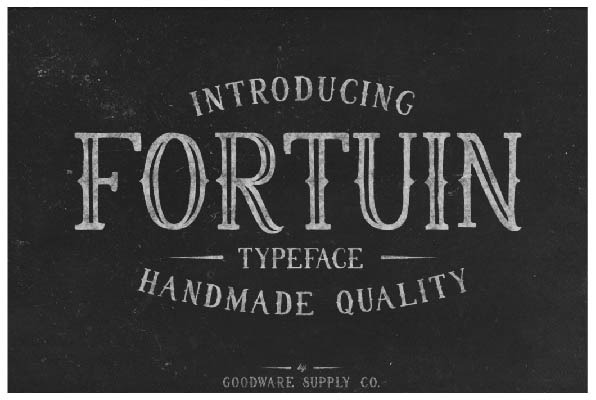
Fortuin Typeface
Introducing the new Fortuin Typeface, another display serif font with handdraw style
This font good for vintage design, t-shirt, logo, labels, posters and etc.